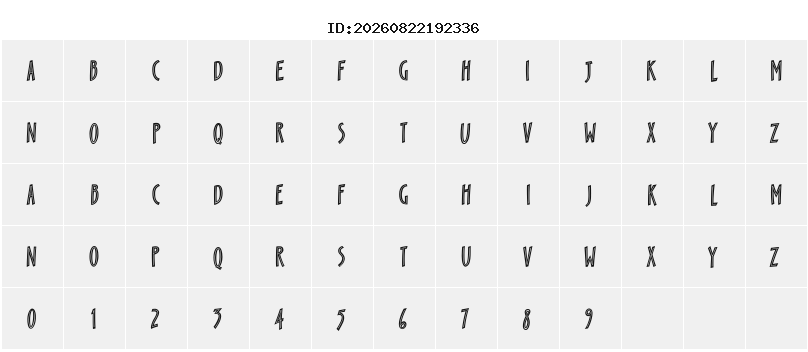
Scamp FB Preview
• Font Name: Scamp FB
• Font ID: TransType 2 PC;Scamp FB Bold Inline;001.000;09/07/05 21:05:41
• Full Font Name: Scamp FB Bold Inline
• PostScript Name: ScampFB-BoldInline
• Copyright: Copr.1991, The Font Bureau, Inc. Designer, Denise Schmidt.
About Scamp FB.ttf
Scamp FB.ttf is a modern, elegant sans-serif font designed for ultimate readability and visual harmony. Perfect for branding, headlines, web design, and print materials.